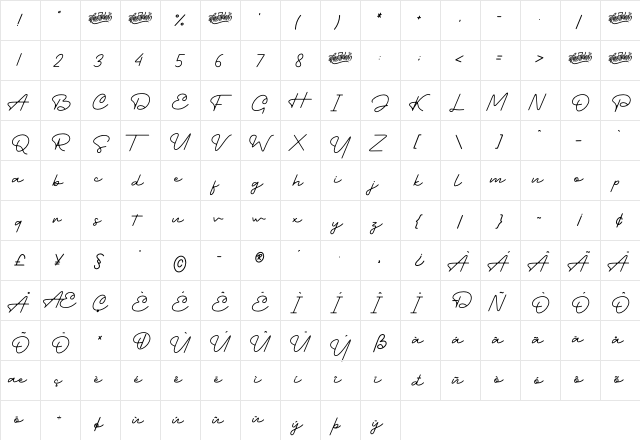
Charlotte Amalie Regular
Regular ·  Almarkhatype 2020 - Abdul Malik - Gahzi ·
DesignerAlmarkhatype 2020 - Abdul Malik - Gahzi
Design Context for Charlotte Amalie Typeface
Charlotte Amalie is a composed and adaptable typeface that performs quietly and consistently across a wide range of design contexts.